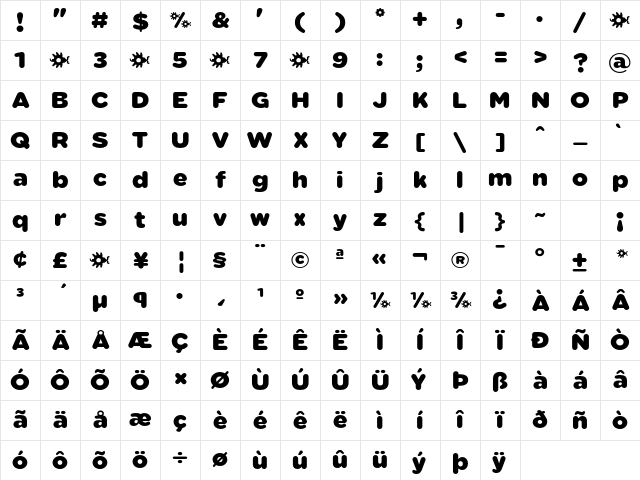
Sabandija ffp Regular
Foundry: deFharo
Designer: deFharo
Design Context for Sabandija ffp
Sabandija ffp is a composed and adaptable typeface that performs quietly and consistently across a wide range of design contexts.